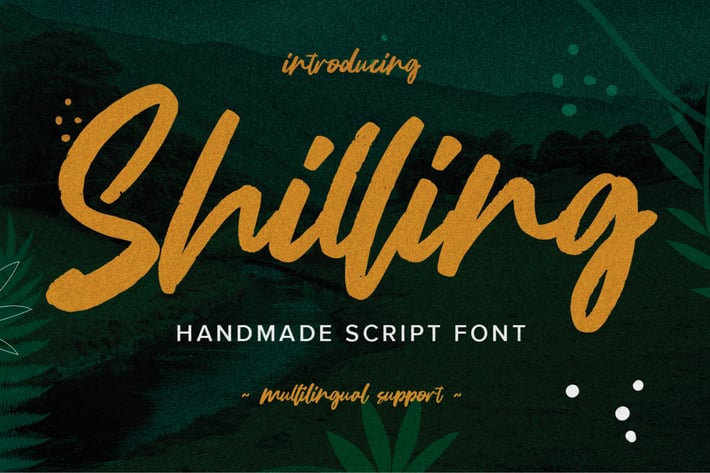
Shilling - Handmade Script Font
Shilling - Handmade Script Font with a natural handwritten feel. This handmade font will make your design has a beautiful natural touch for each details. It is perfect for any design project as Invitation,logo, book cover, craft or any design purposes,photos, photography overlays, signs, window art, scrapbooking, tags and so much more!